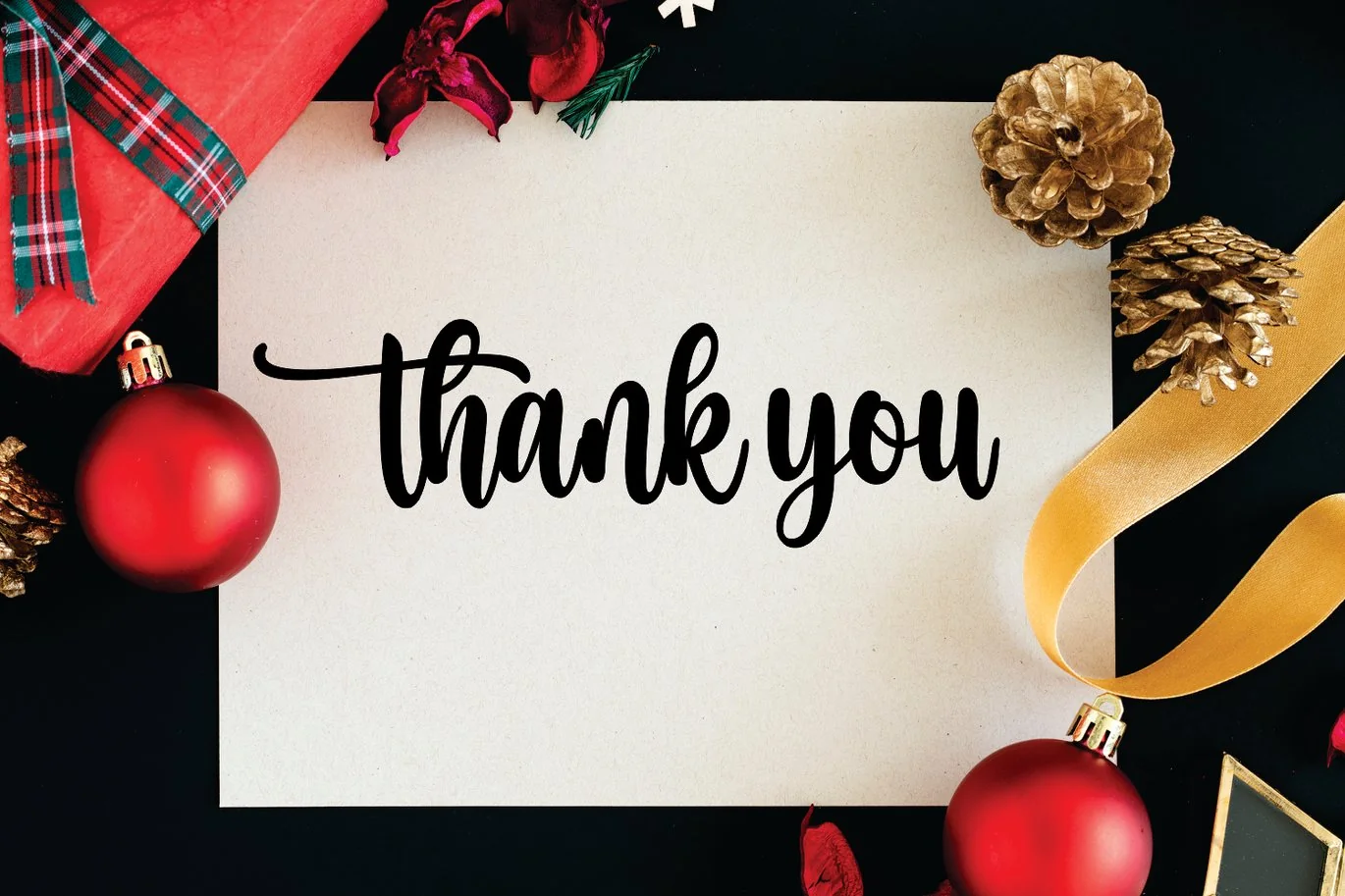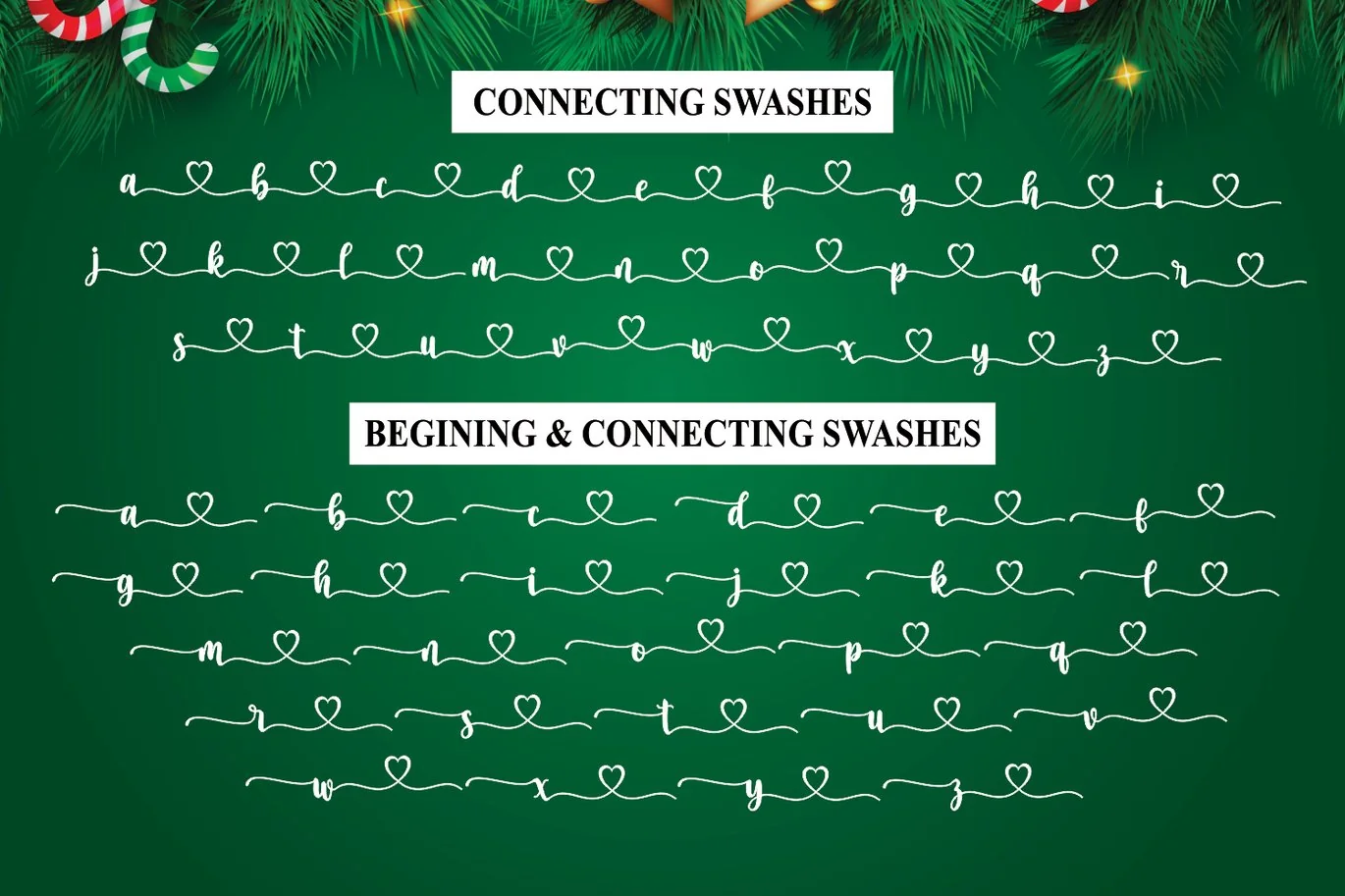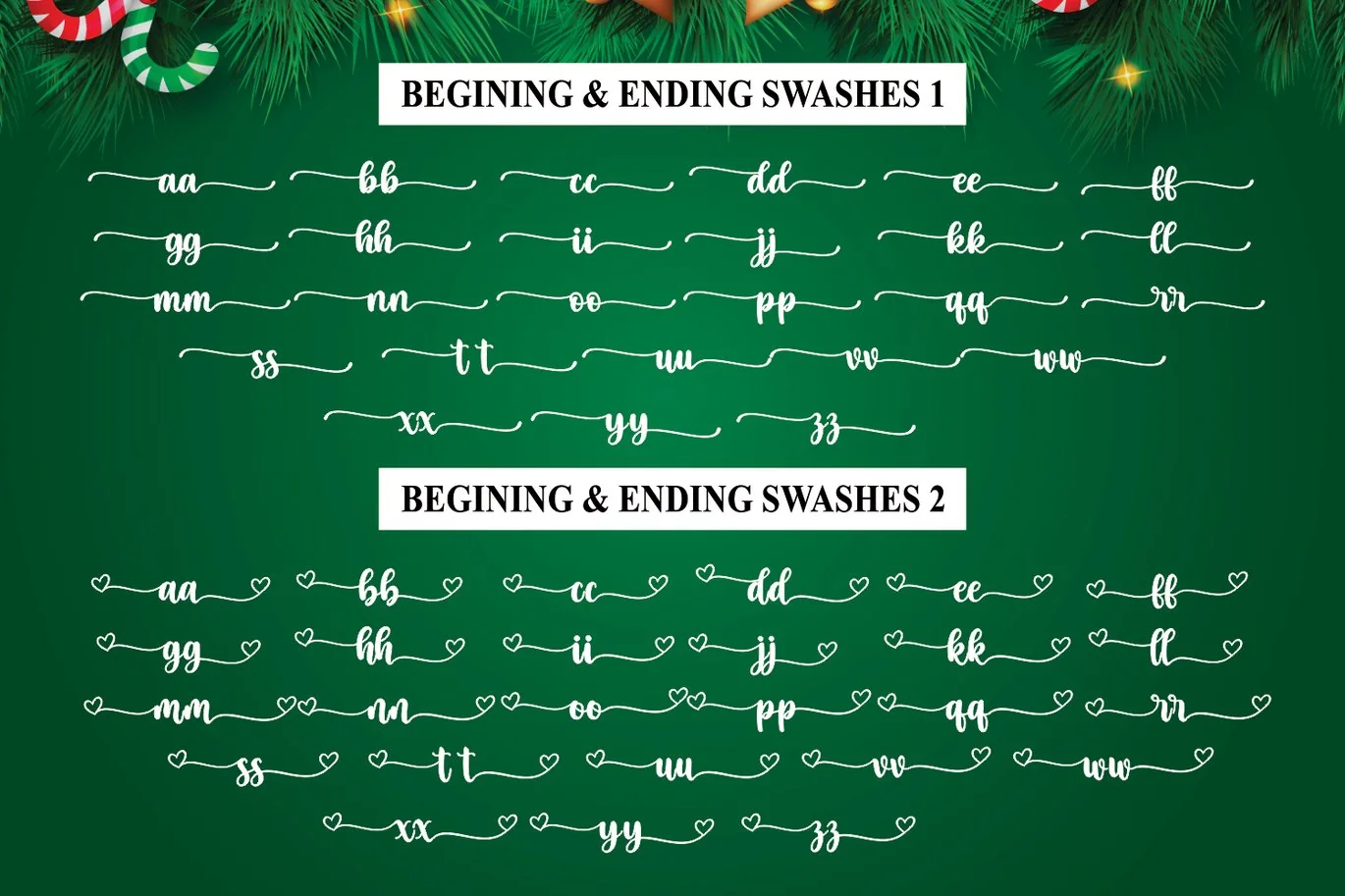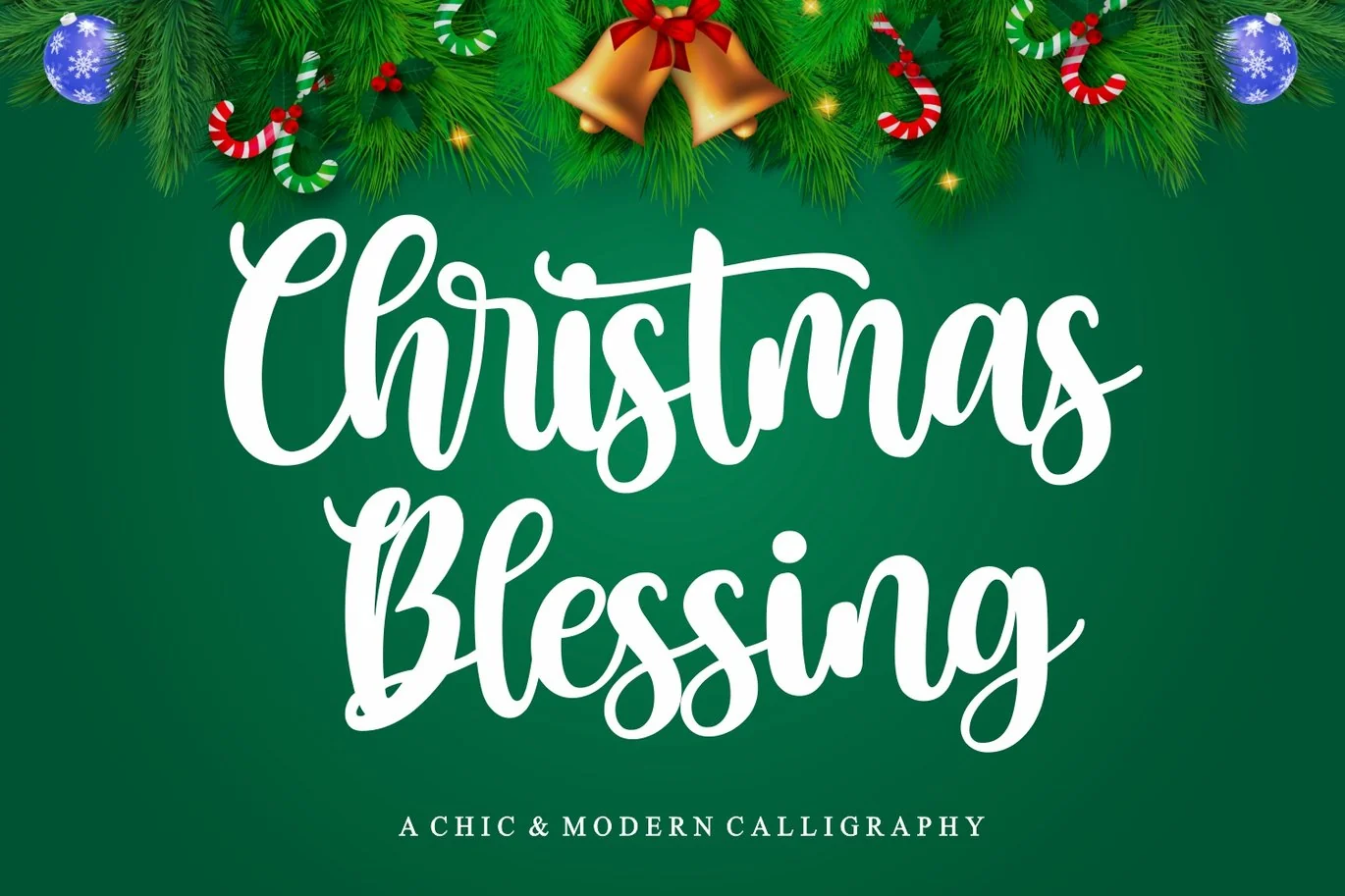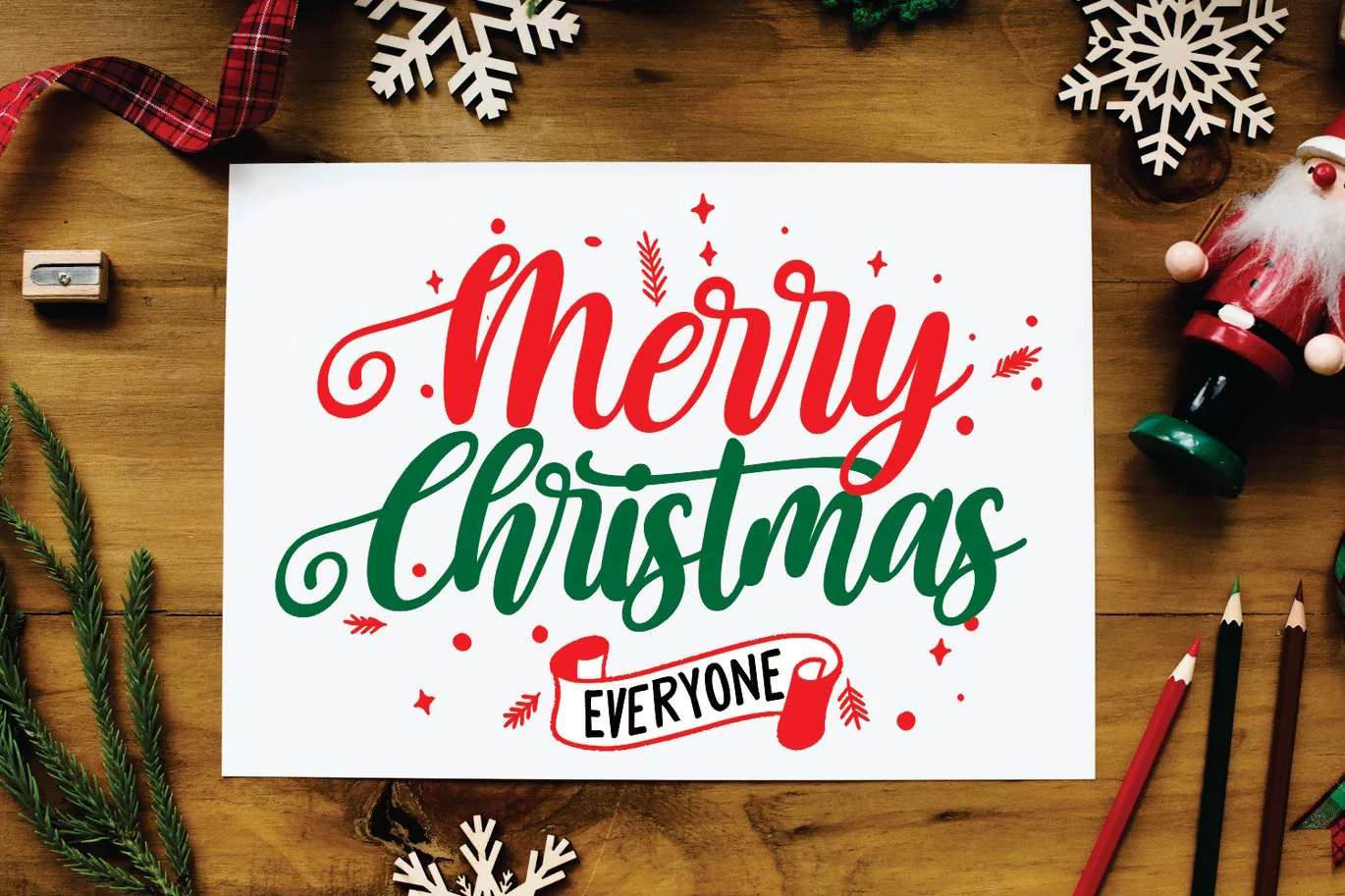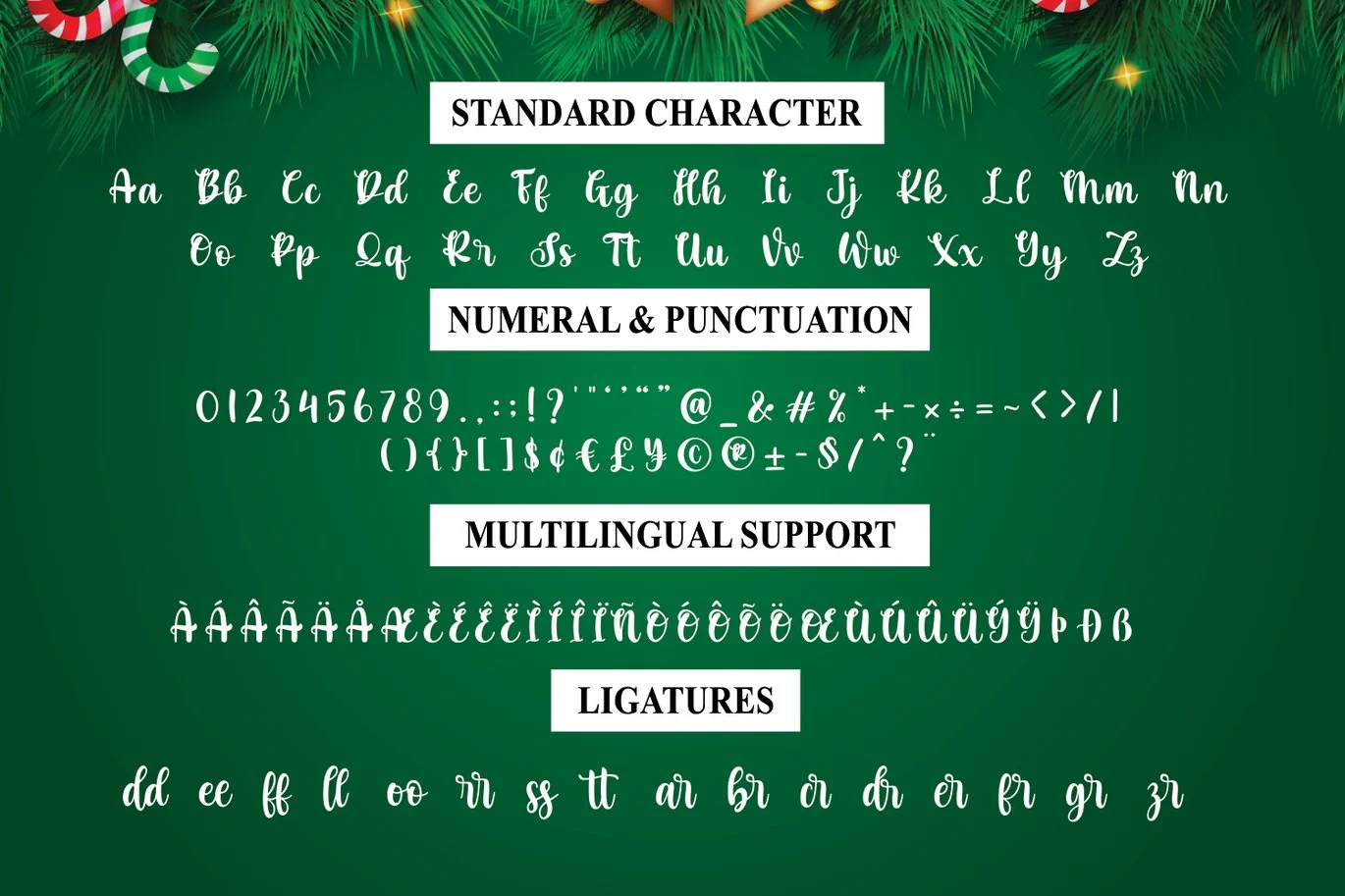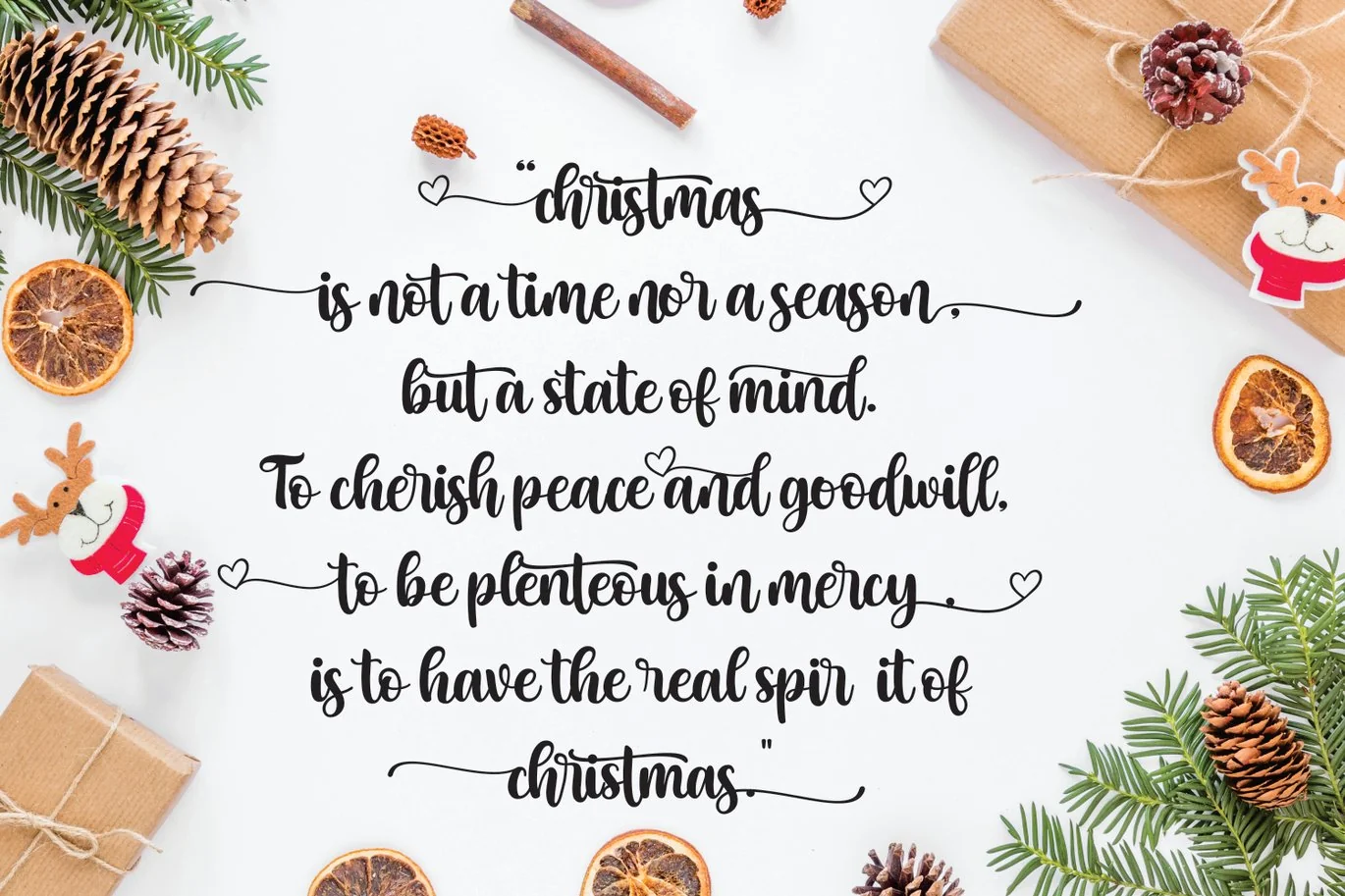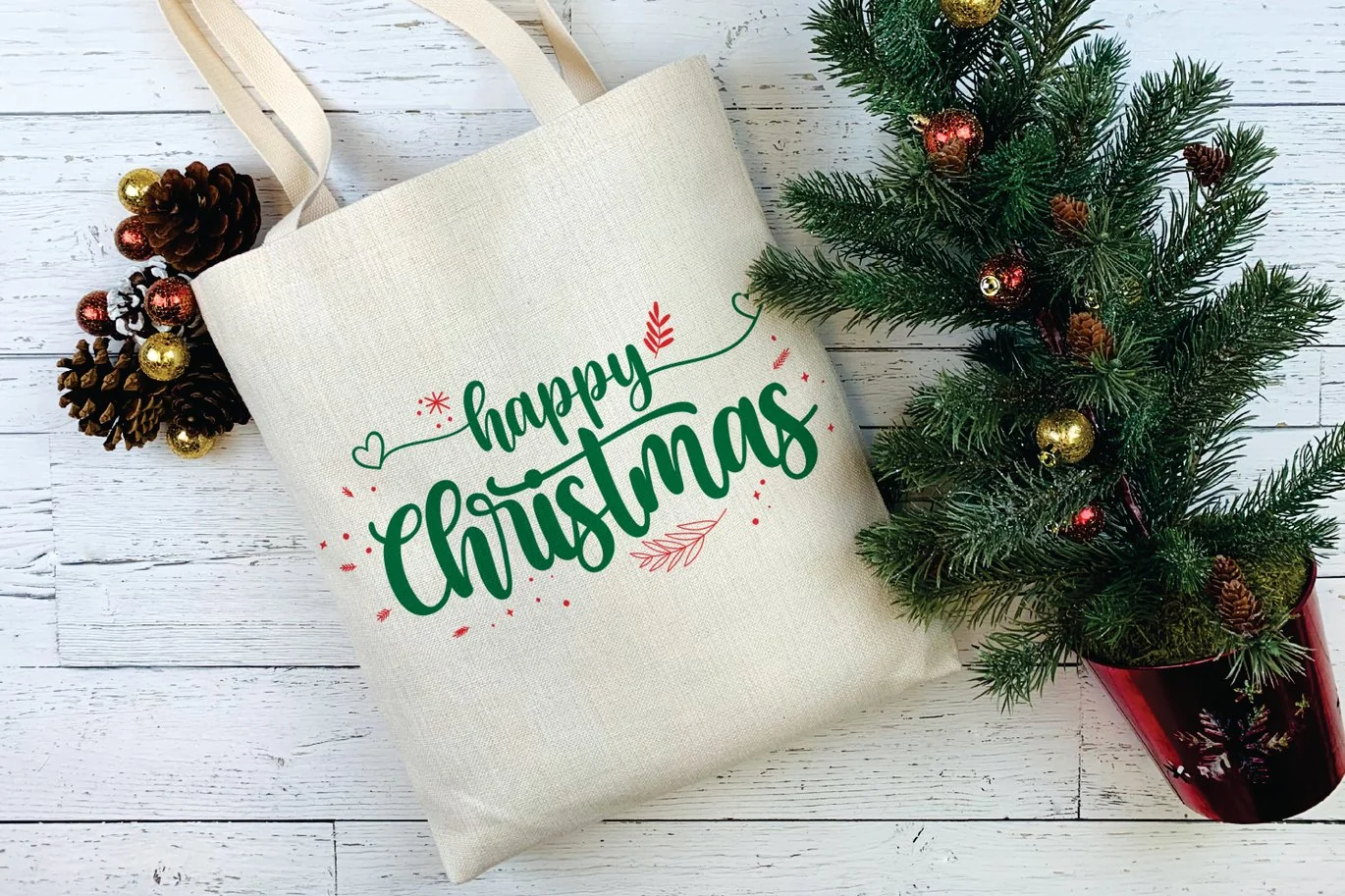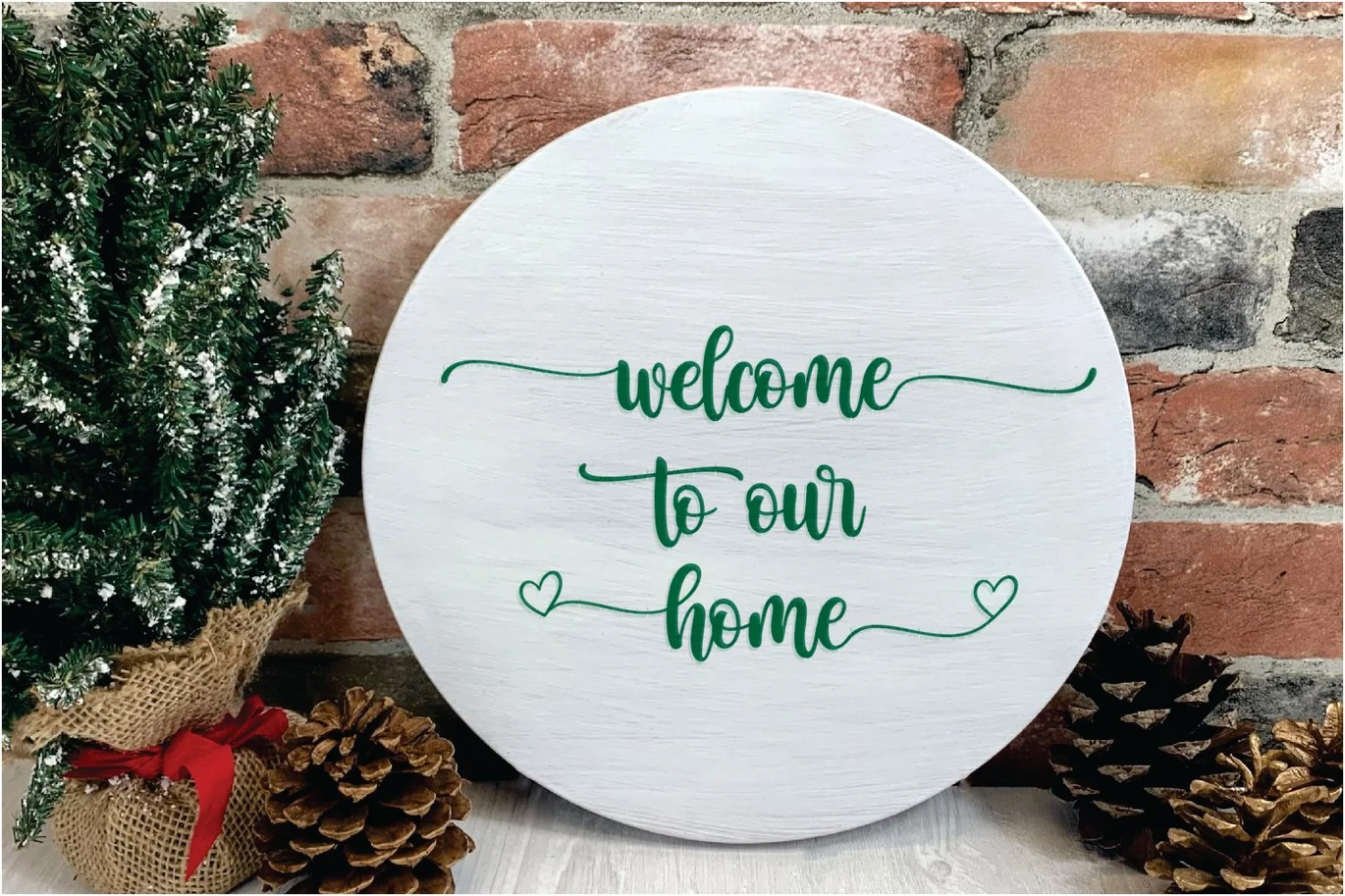
Christmas Blessing – Modern Calligraphy Font
Christmas Blessing is a chic and modern calligraphy.
This fonts is ideal for crafting, branding and decorate your any project.
This fonts are perfect for wedding invitation or your blog.
Also with their help, you can create a logo or beautiful frame for your home.
Or just use for your business, book covers, stationery, marketing, magazines and more.
Fall in love with its incredibly versatile style and use it to create spectacular designs!
Use this font for any crafting project that requires a personalized look!